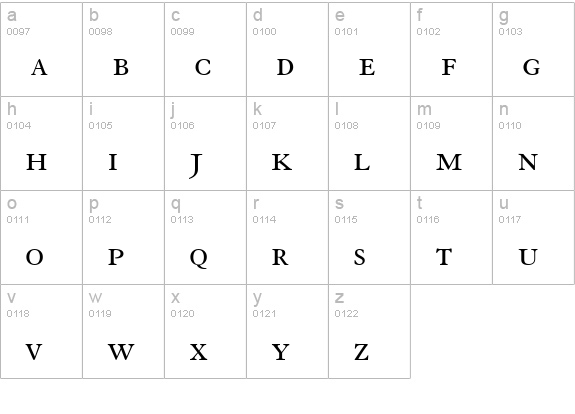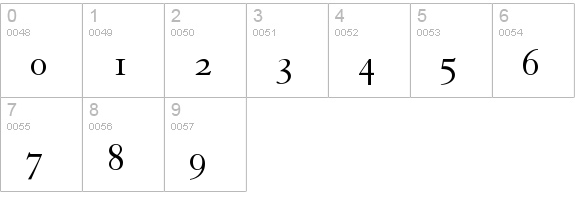
Tiasco OldStyle SSi Small Caps Font Details
Introducing Tiasco OldStyle SSi Small Caps font, a timeless and elegant typeface that exudes sophistication and grace. This exquisite font is meticulously designed with intricate details and carefully crafted curves, making it a perfect choice for any project that requires a touch of class. With its small caps variant, Tiasco OldStyle SSi offers a unique and charming aesthetic that adds a touch of nostalgia to any design. Whether it's for a vintage-inspired logo, an elegant invitation, or a refined headline, this font effortlessly captures attention and conveys a sense of timeless elegance. What makes Tiasco OldStyle SSi Small Caps font even more enticing is that it is freely available to download at FontsMarket.com. This means that you can easily access and utilize this stunning font without any hassle or restrictions, allowing you to elevate your designs to new heights without breaking the bank. The versatility of Tiasco OldStyle SSi Small Caps font knows no bounds. Its clean lines and balanced proportions make it suitable for a wide range of applications, from branding and packaging to editorial design and advertising. Its timeless appeal ensures that it will remain a go-to choice for designers seeking a classic and sophisticated look. Don't miss out on the opportunity to enhance your projects with the elegance and allure of Tiasco OldStyle SSi Small Caps font. Download it for free at FontsMarket.com and unlock a world of possibilities for your designs.